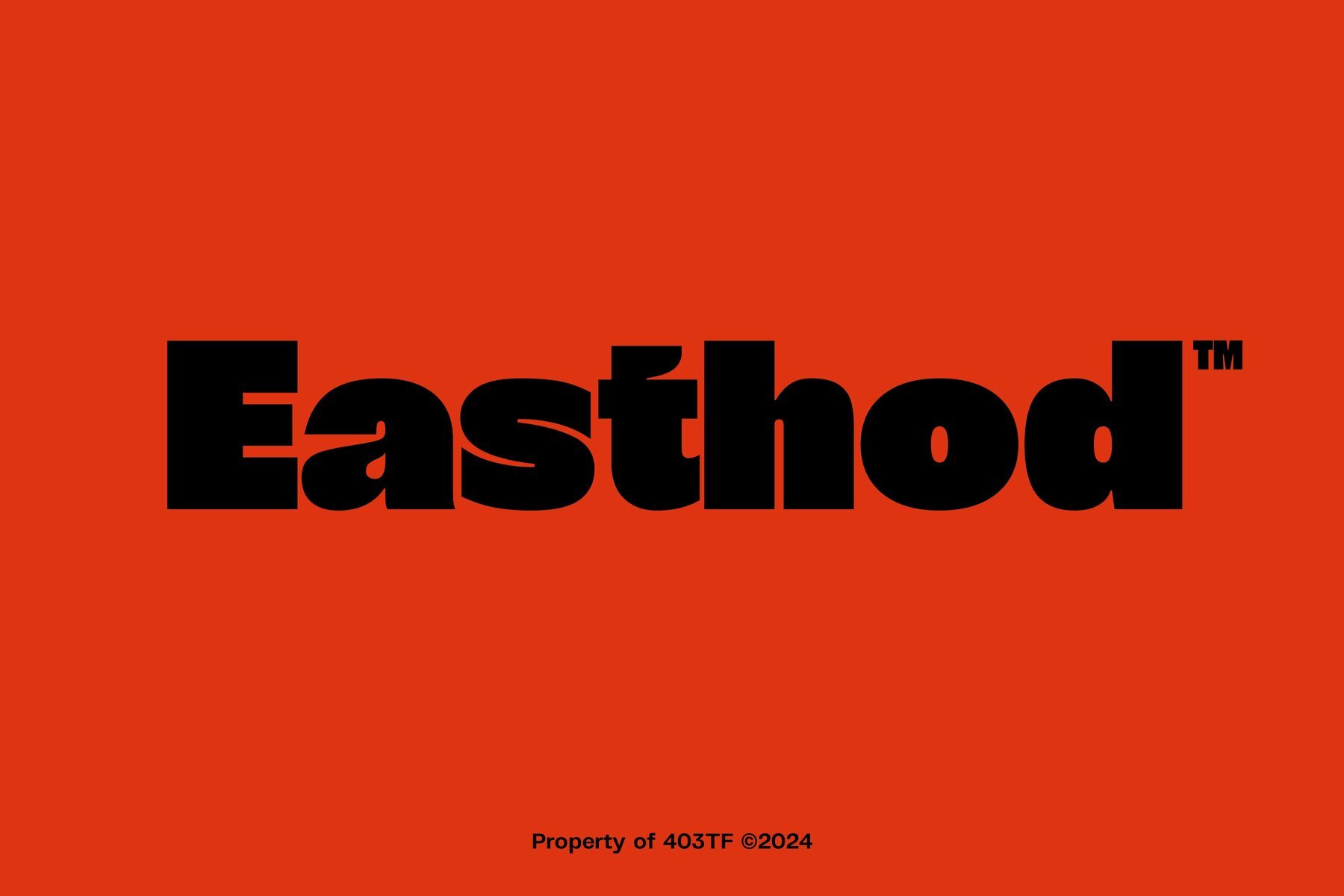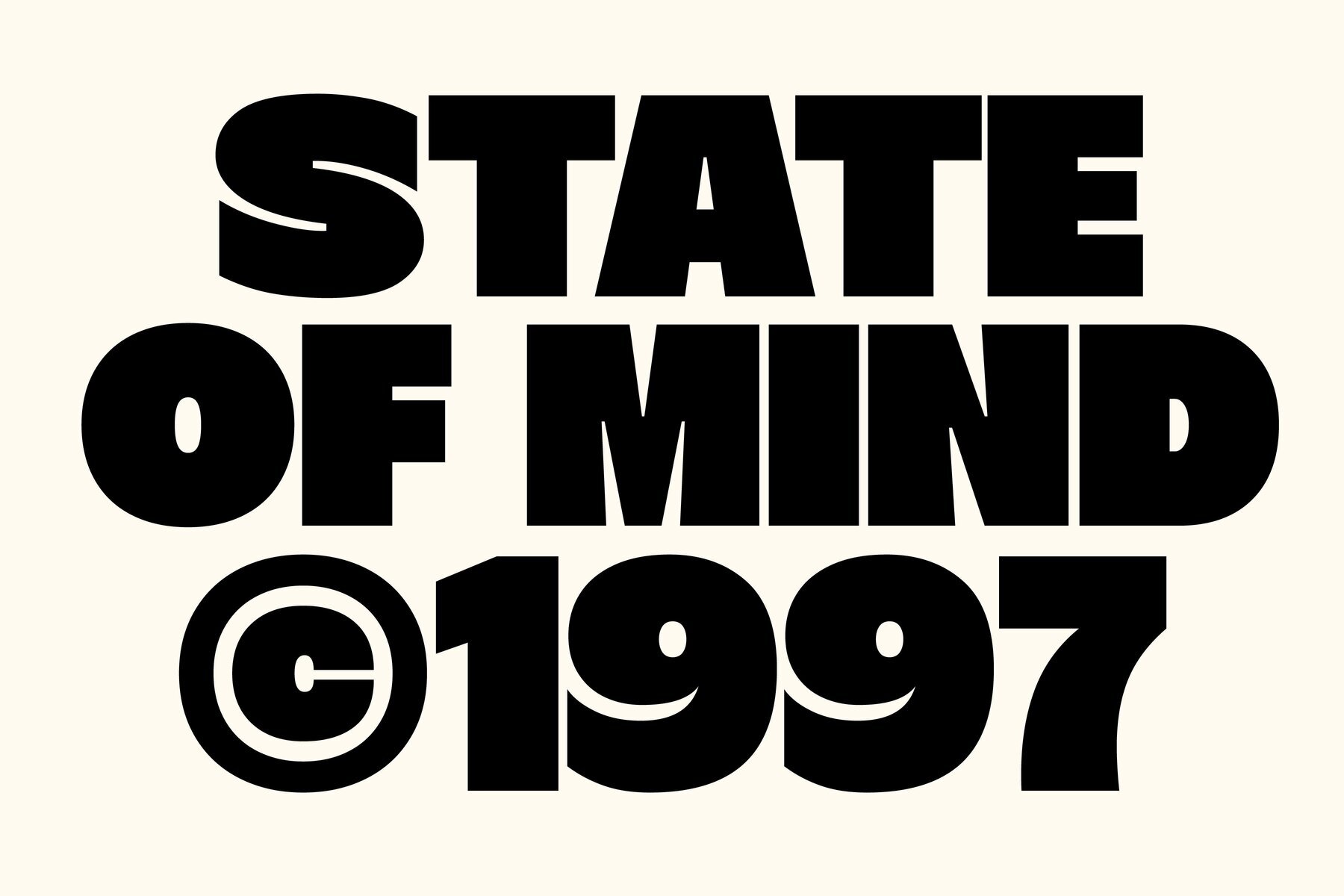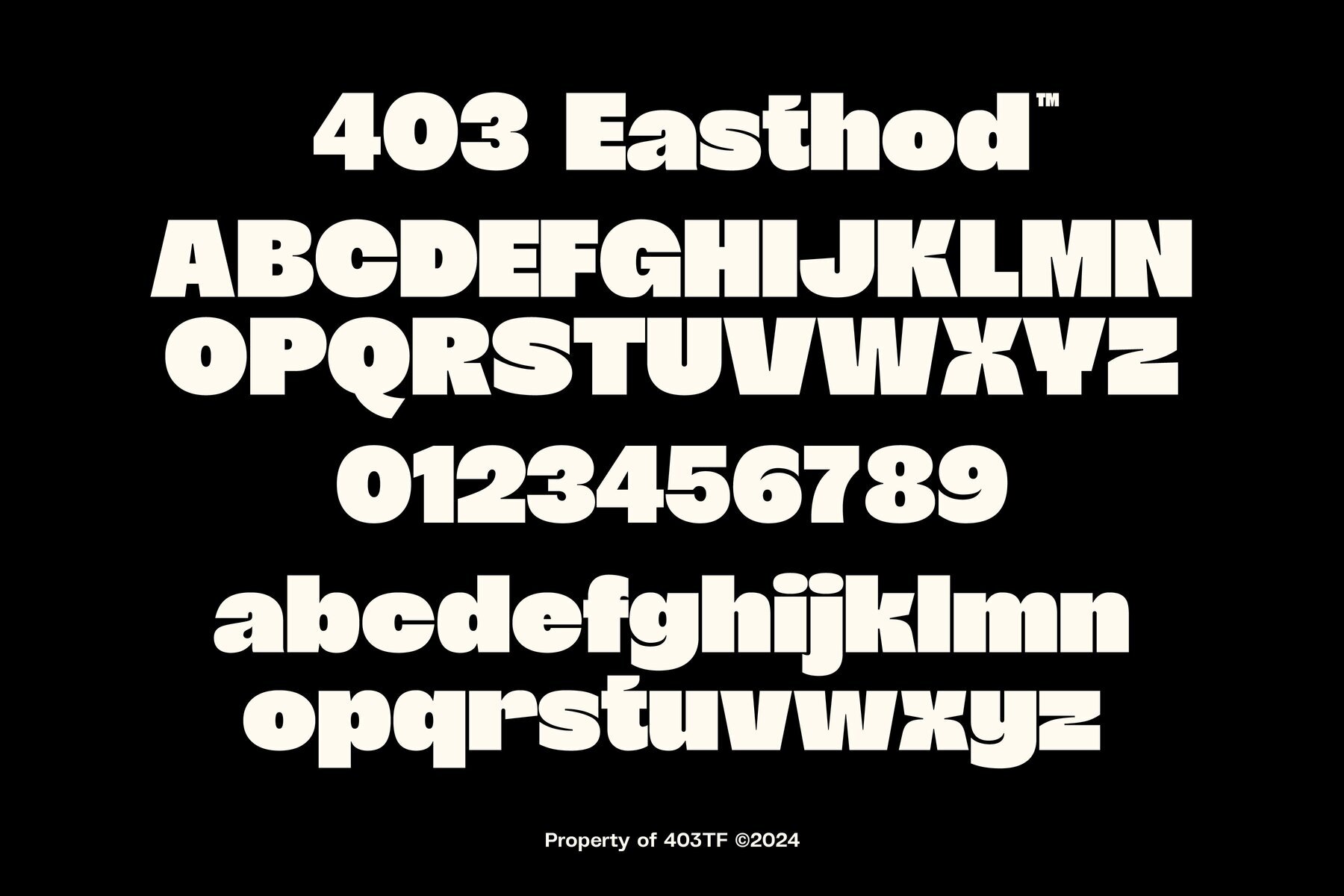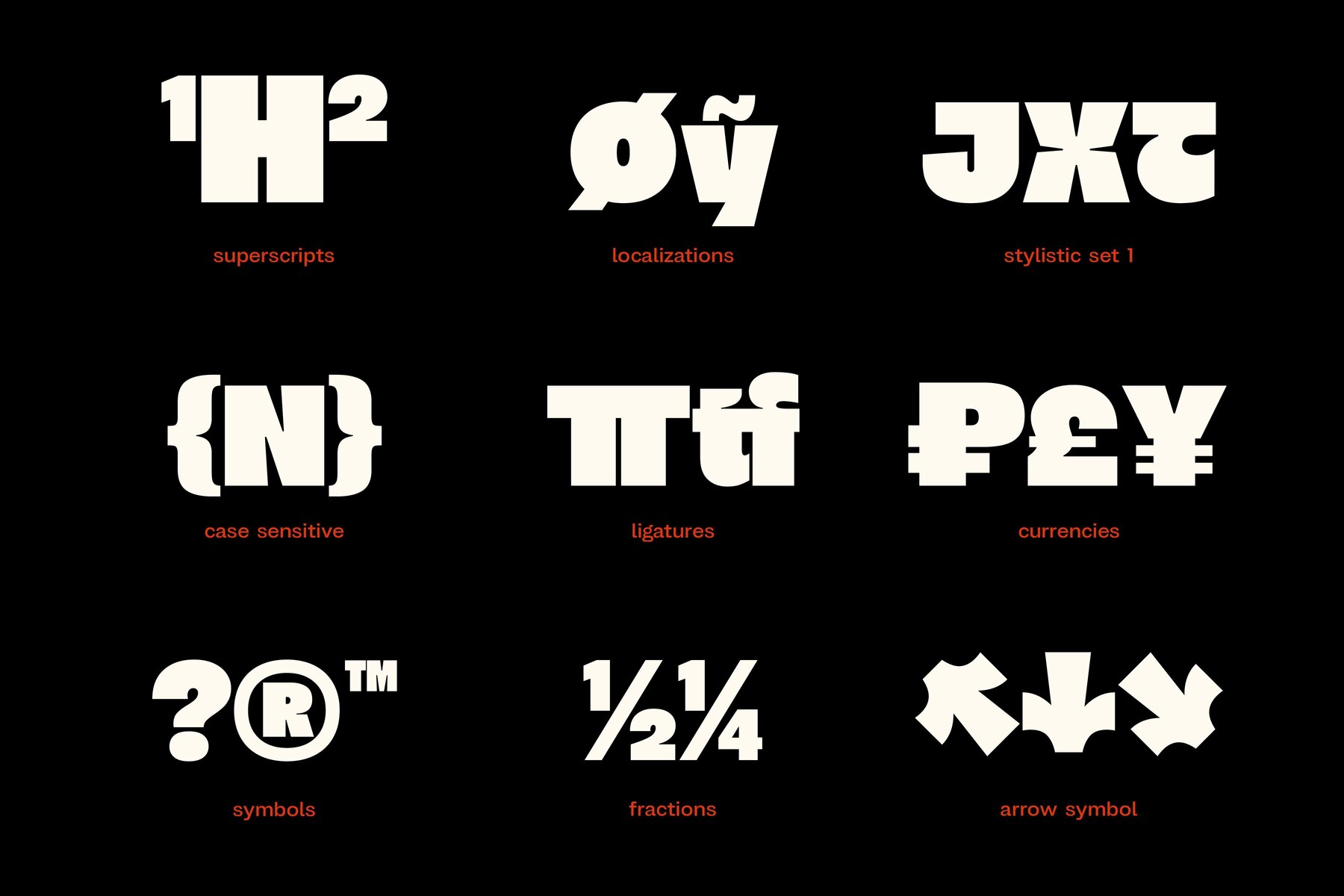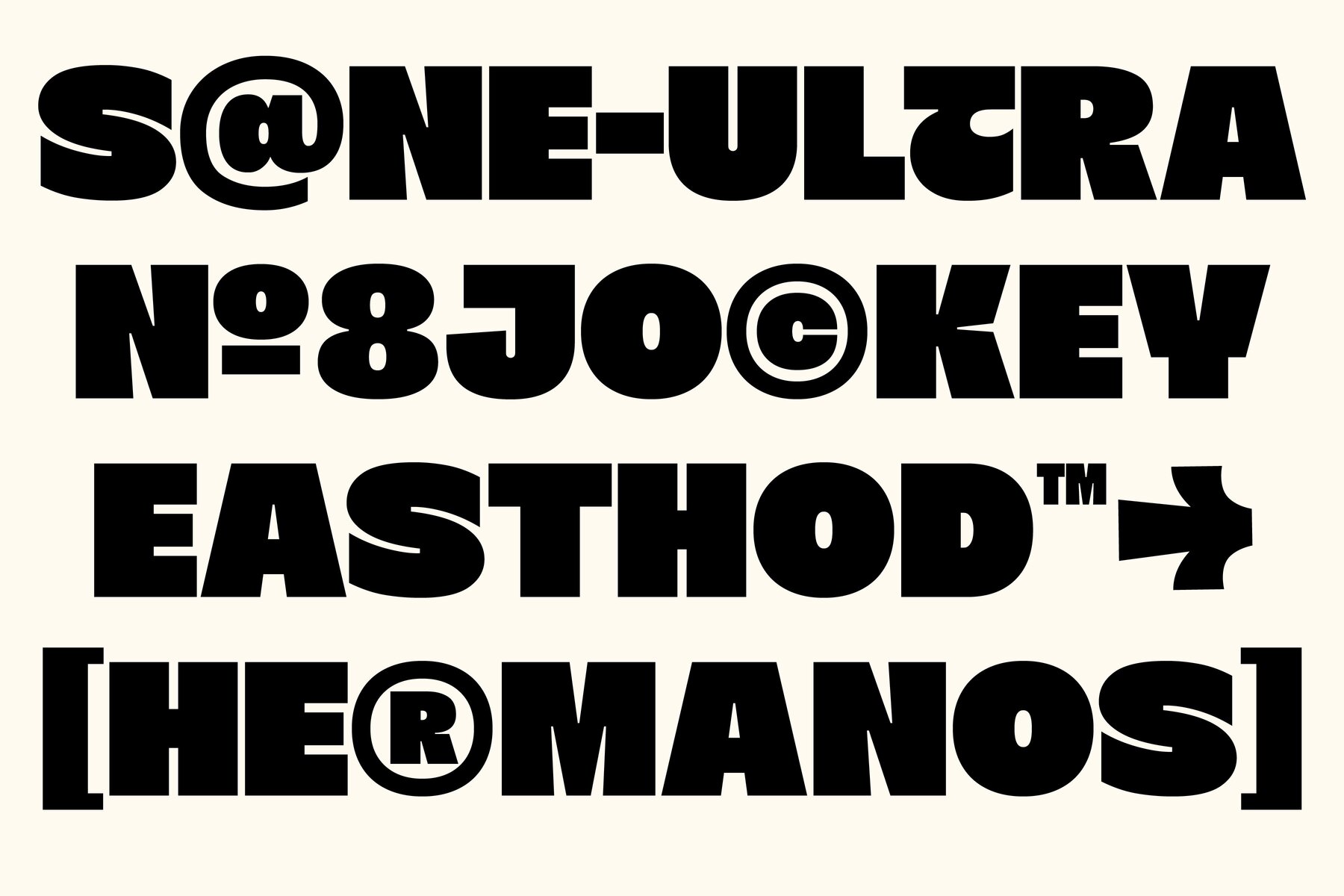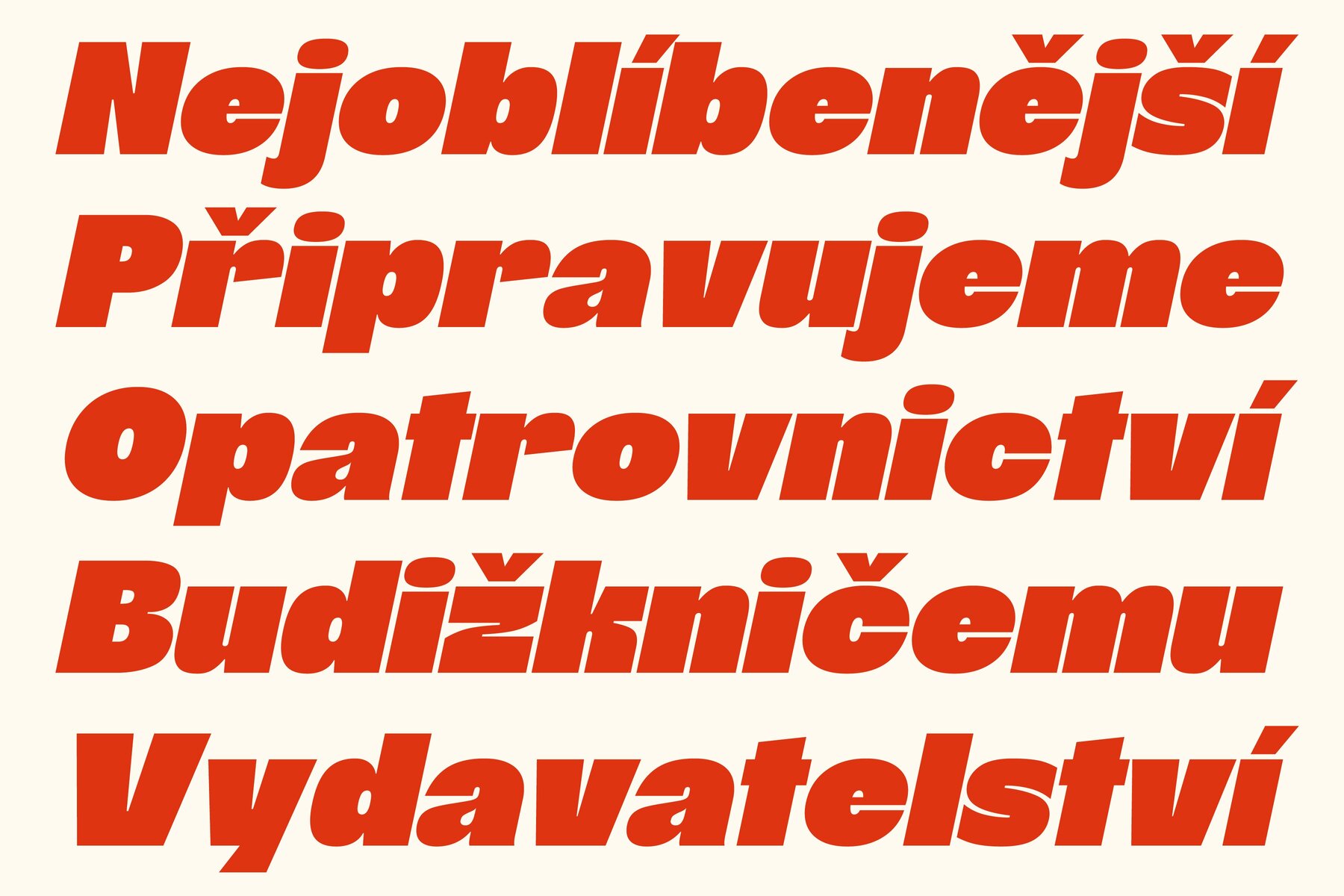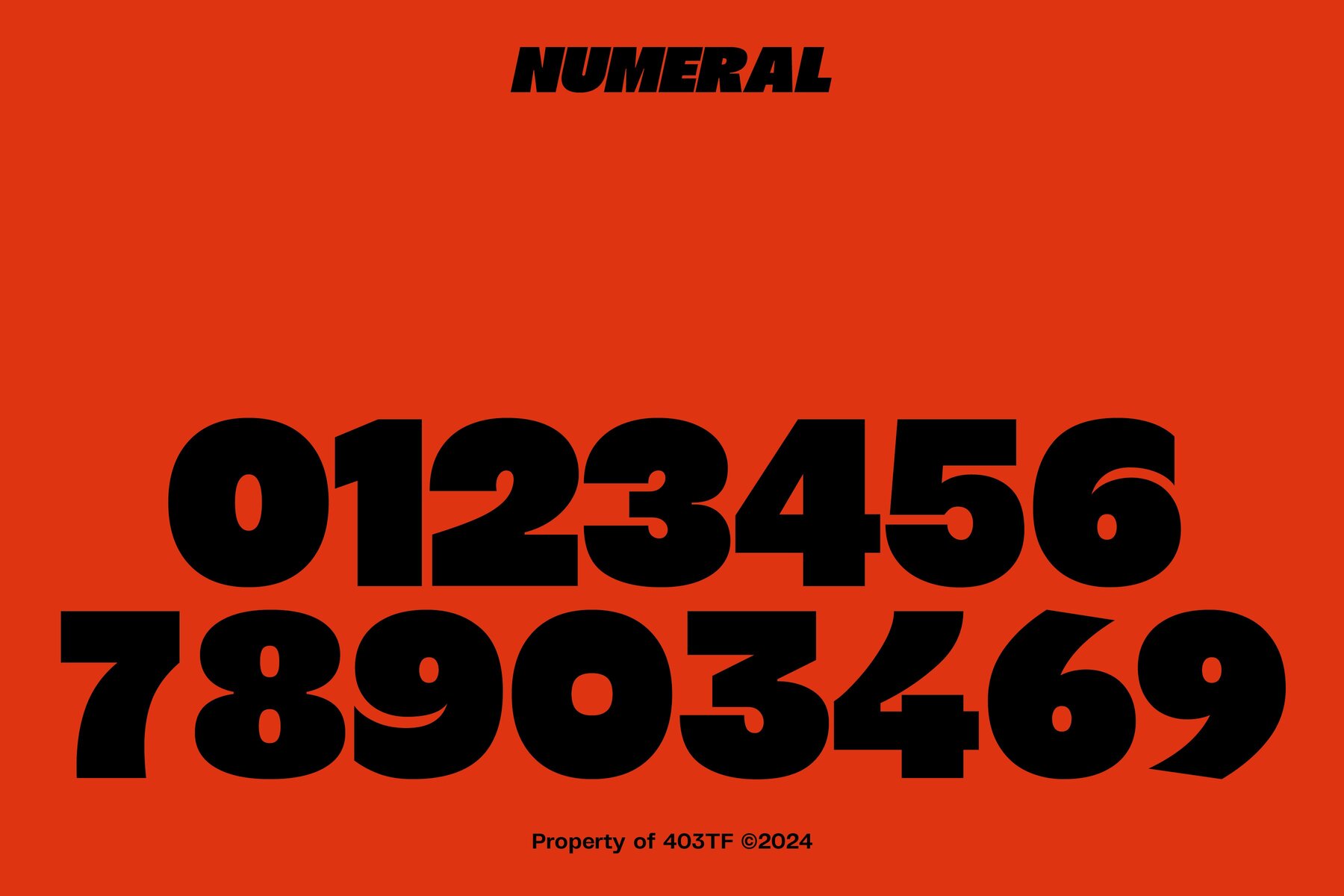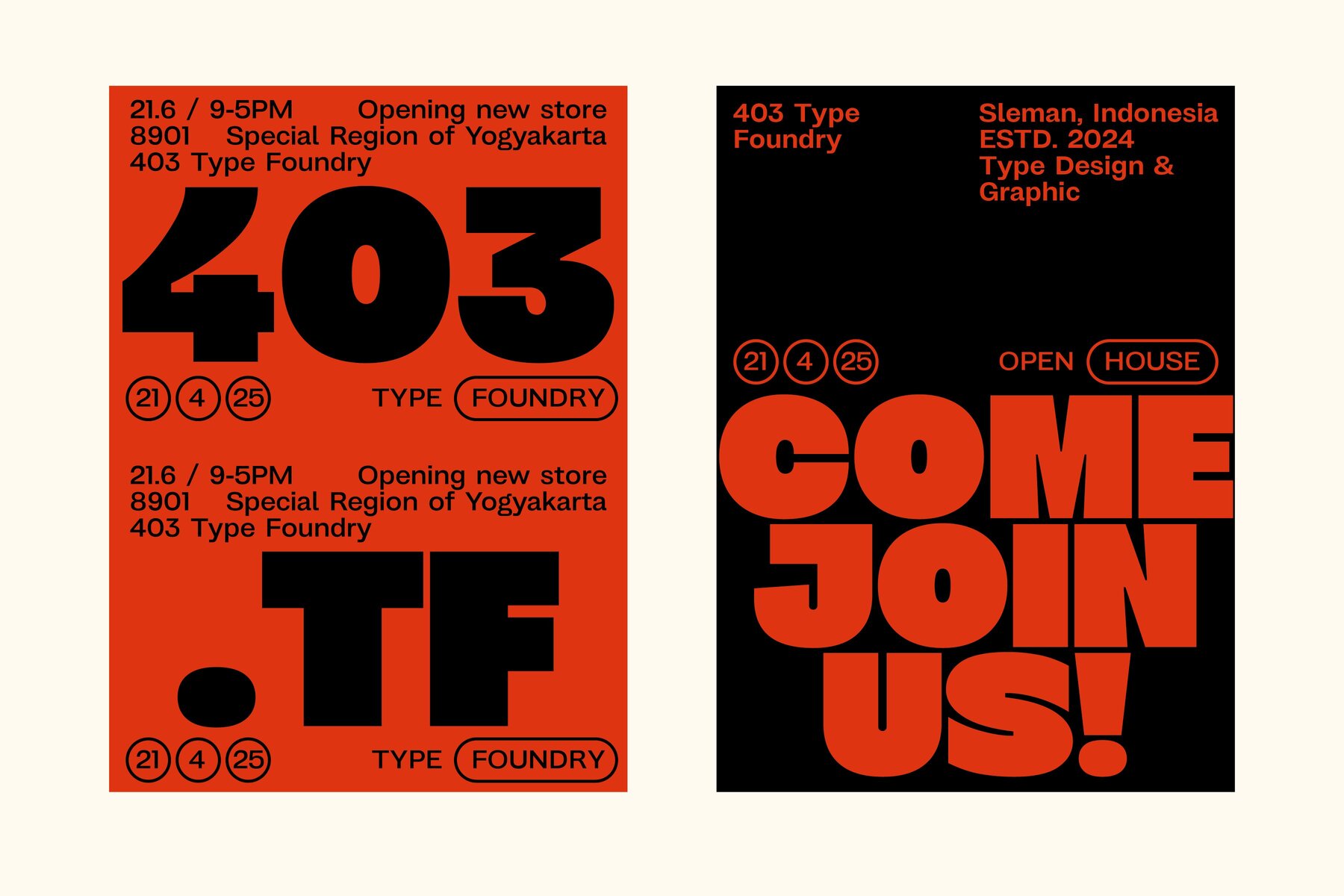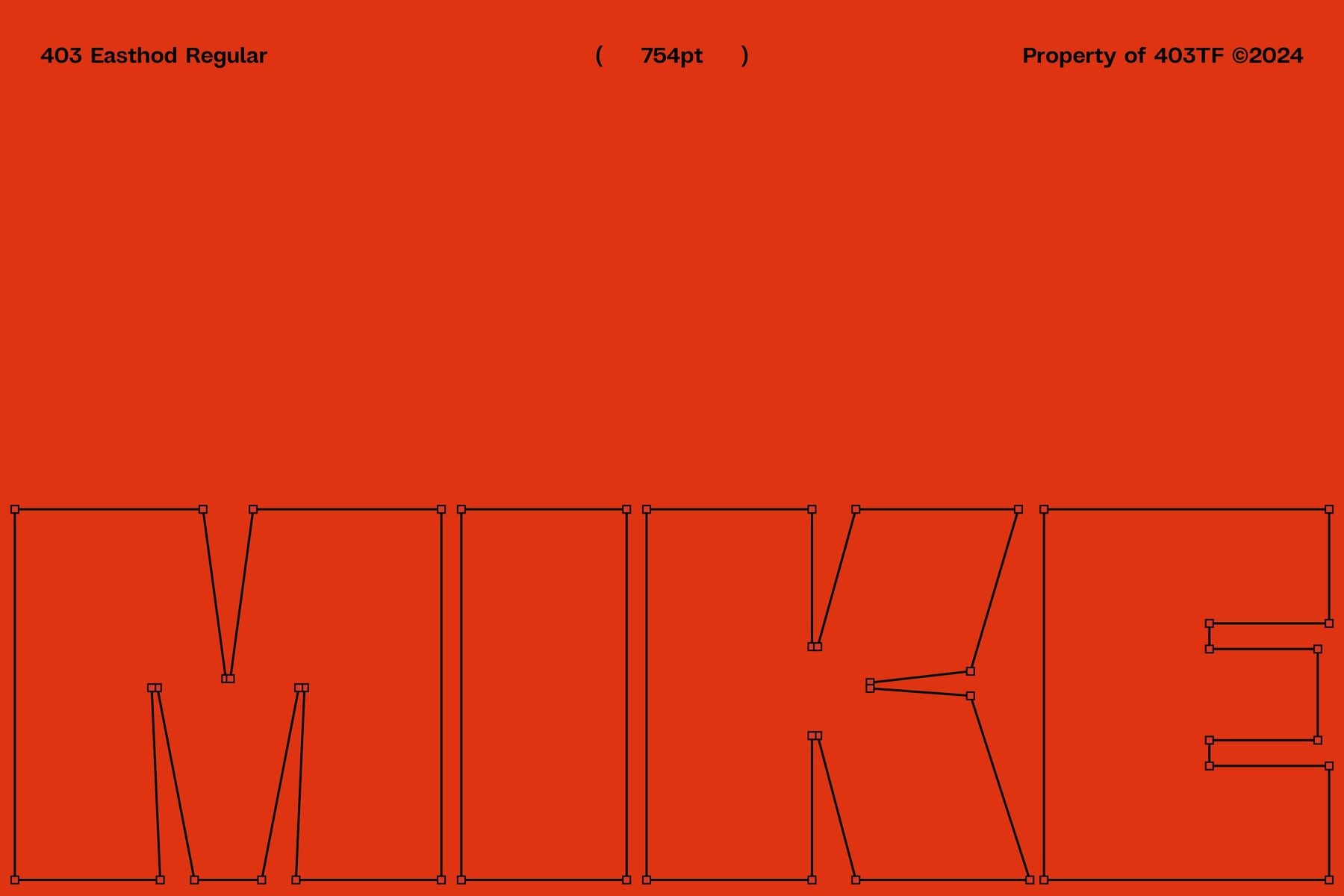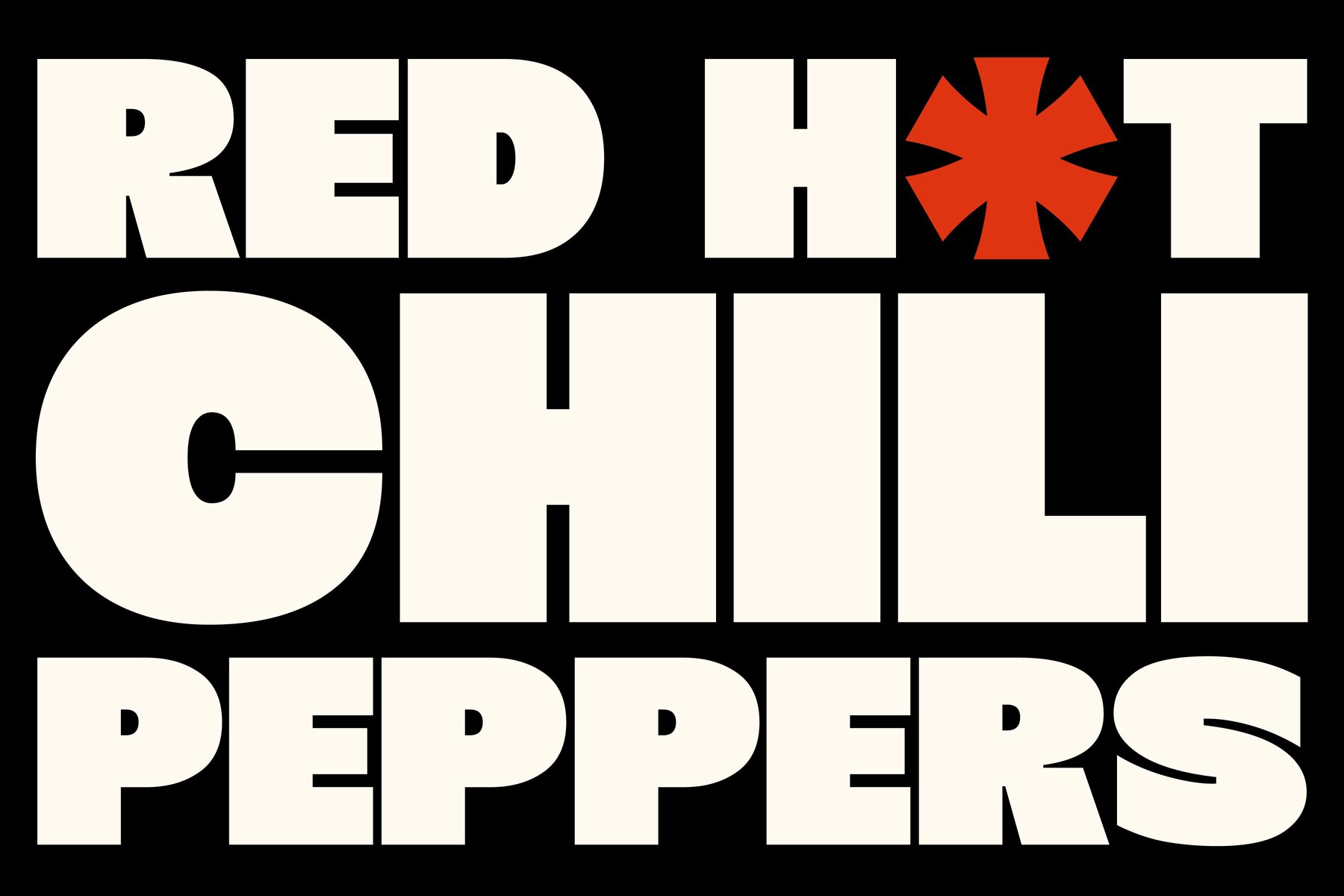
403 Easthod Font
403 Easthod Regular
403 Easthod Slant
The powerful and sturdy typeface 403 Easthod comes in both regular and slanted variants. It is appropriate for headlines and branding because of its well-balanced proportions and rounded corners, which communicate strength and approachability. The font's adaptability for a range of applications is increased by its stylistic set, multilingual support, case sensitivity, ligatures, fractions, and arrow symbols. It is a useful addition to any designer's toolset because of its unique appearance, which fits perfectly with current design trends.